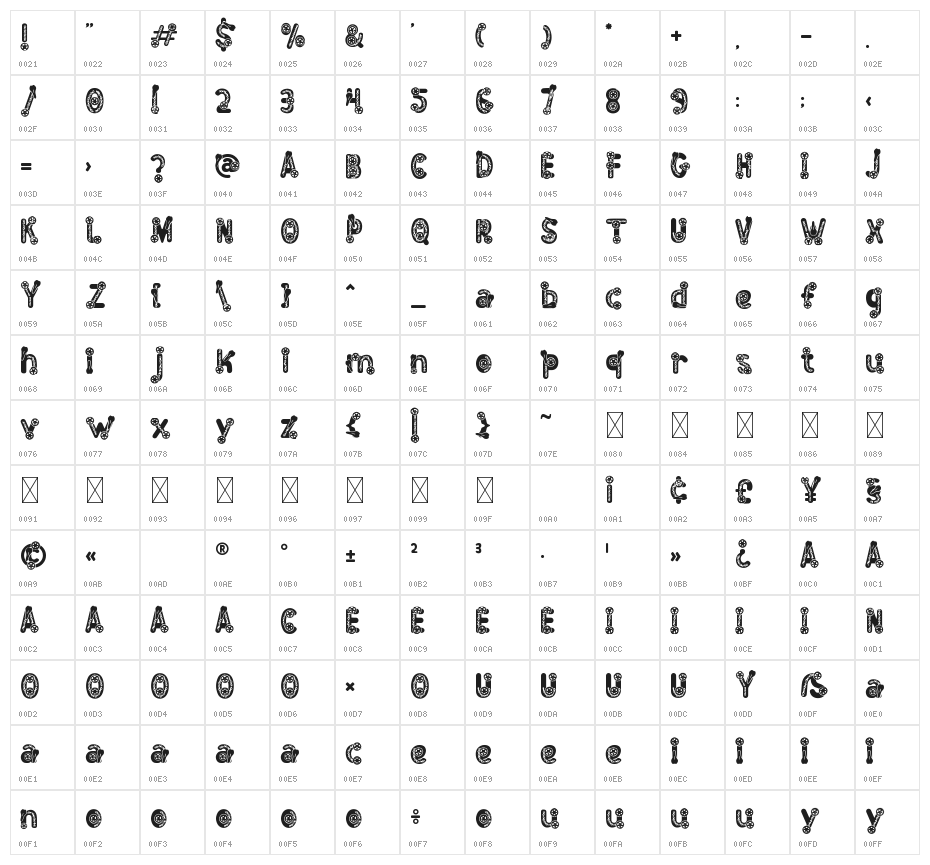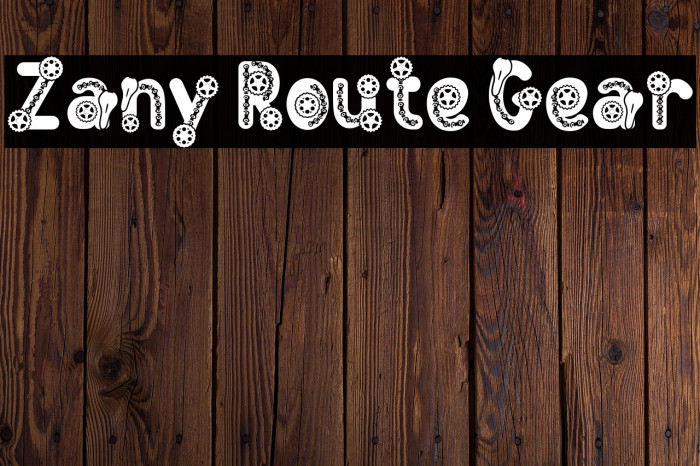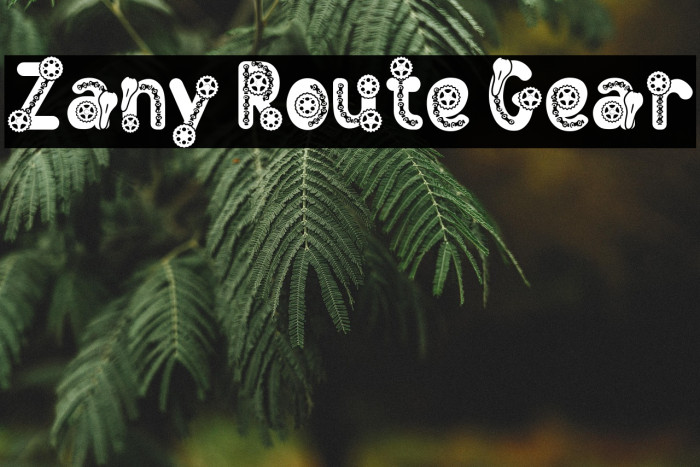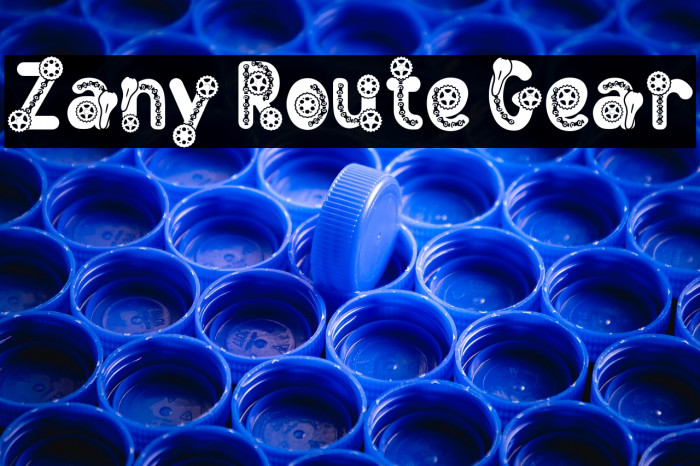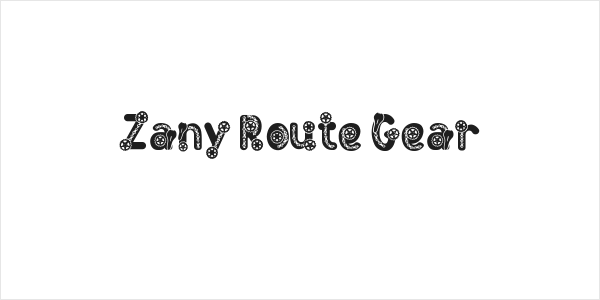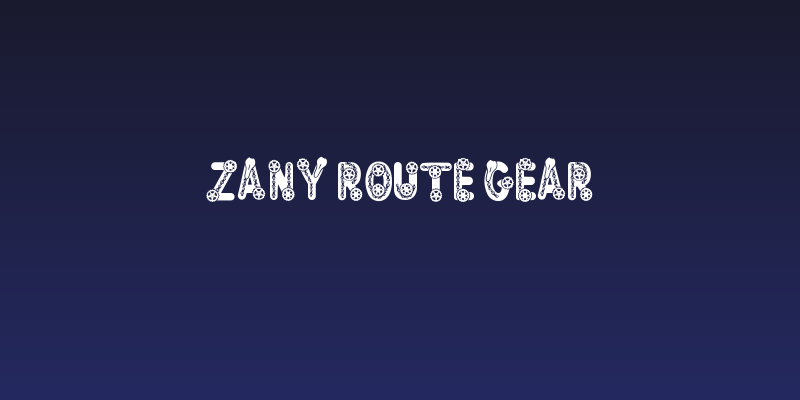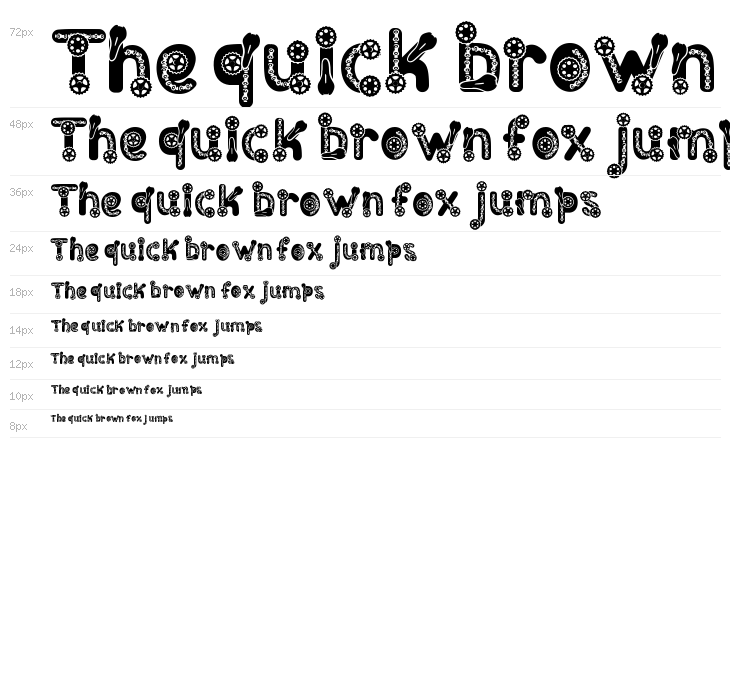
Zany Route Gear Font
Zany Route Gear Description
This font is a playful and decorative typeface featuring intricate gear and mechanical motifs within each character. The design incorporates bold, rounded shapes with detailed patterns that resemble gears and mechanical parts, giving it a unique and industrial feel. The characters are well-defined and maintain a consistent style throughout, making it suitable for creative and themed projects. The font's boldness and decorative elements make it stand out, while the intricate details add a layer of complexity and interest.
| Proposed Projects | Ideal for steampunk-themed designs, posters, creative branding, and any project requiring a mechanical or industrial aesthetic. |